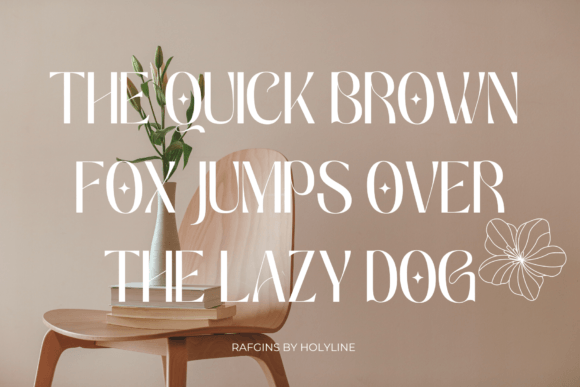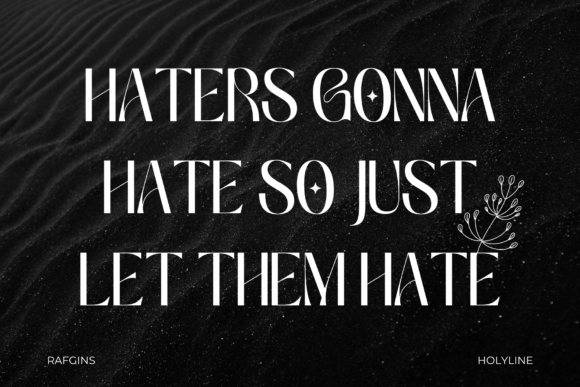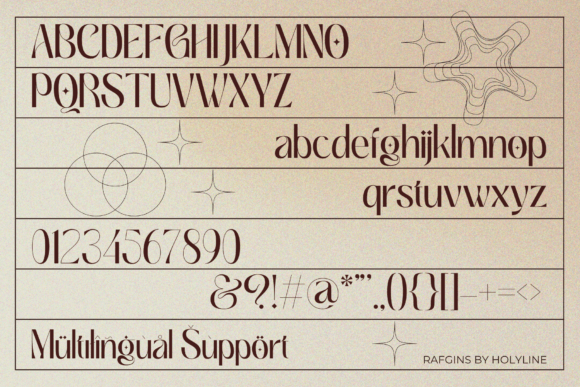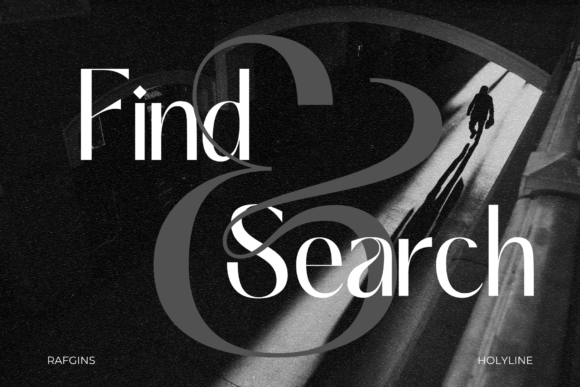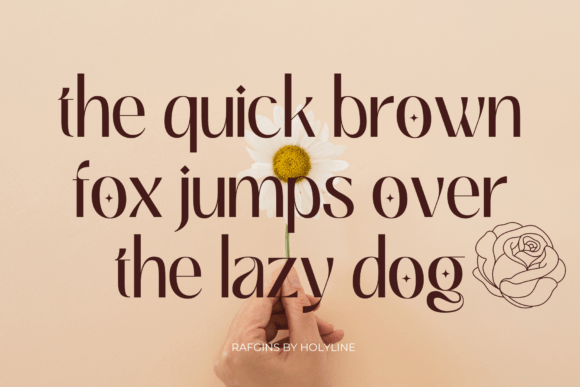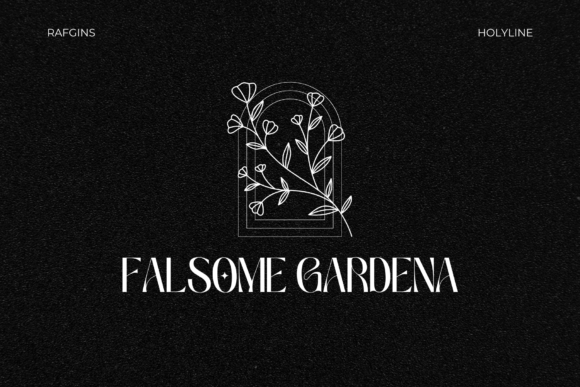
Introduction to Rafgins Font
Have you ever stared at a blank canvas, waiting for the perfect font to bring your creative project to life? The moment of truth arrives when you discover the perfect design resource – a font that elevates your entire aesthetic and leaves a lasting impression. For many designers, that moment is with the Rafgins Font. This exquisite sans-serif font has been making waves in the design community with its clean, minimalist lines and sleek, contemporary style.
Whether you’re working on a high-quality branding project or need a versatile font for a free download, the Rafgins Font is an invaluable asset. With its refined design and PUA encoding, you can access all the glyphs and swashes with ease, giving you the freedom to express your creativity without any limitations. Its understated elegance makes it perfect for adding a touch of professionalism to your design, and its transparent background ensures that it blends seamlessly with any background.
Key Features of Rafgins Font
- High-quality design resource with a unique, modern style, ideal for creative projects
- Perfect for use in graphic design, digital art, and other creative projects where a modern and stylish font is needed
Honest Review: Rafgins Font
I recently had the opportunity to work with the Rafgins Font, a free design resource that has been making waves in the creative community. Overall, I was impressed with the font’s high quality and versatility.
Here are some things that I think work well with the Rafgins Font:
- ✨ Its modern and sleek design makes it perfect for creative projects that require a touch of sophistication.
- ✨ The font is highly customizable, with a transparent background that allows for easy layering and composition.
However, I did encounter a few limitations while working with the Rafgins Font:
- ⚠️ The font’s legibility can be a bit tricky in certain contexts, especially at small font sizes.
- ⚠️ The font family is limited to a single weight, which may not be suitable for projects that require multiple font weights.
Overall, I think the Rafgins Font is a solid addition to any designer’s toolkit. While it may have some limitations, its high quality and creative potential make it well worth considering for your next project.
The Rafgins Font is commonly used in creative projects such as graphic design, digital art, and typography. It is a high-quality font that is perfect for use in presentations, documents, and designs that require a unique and creative touch.